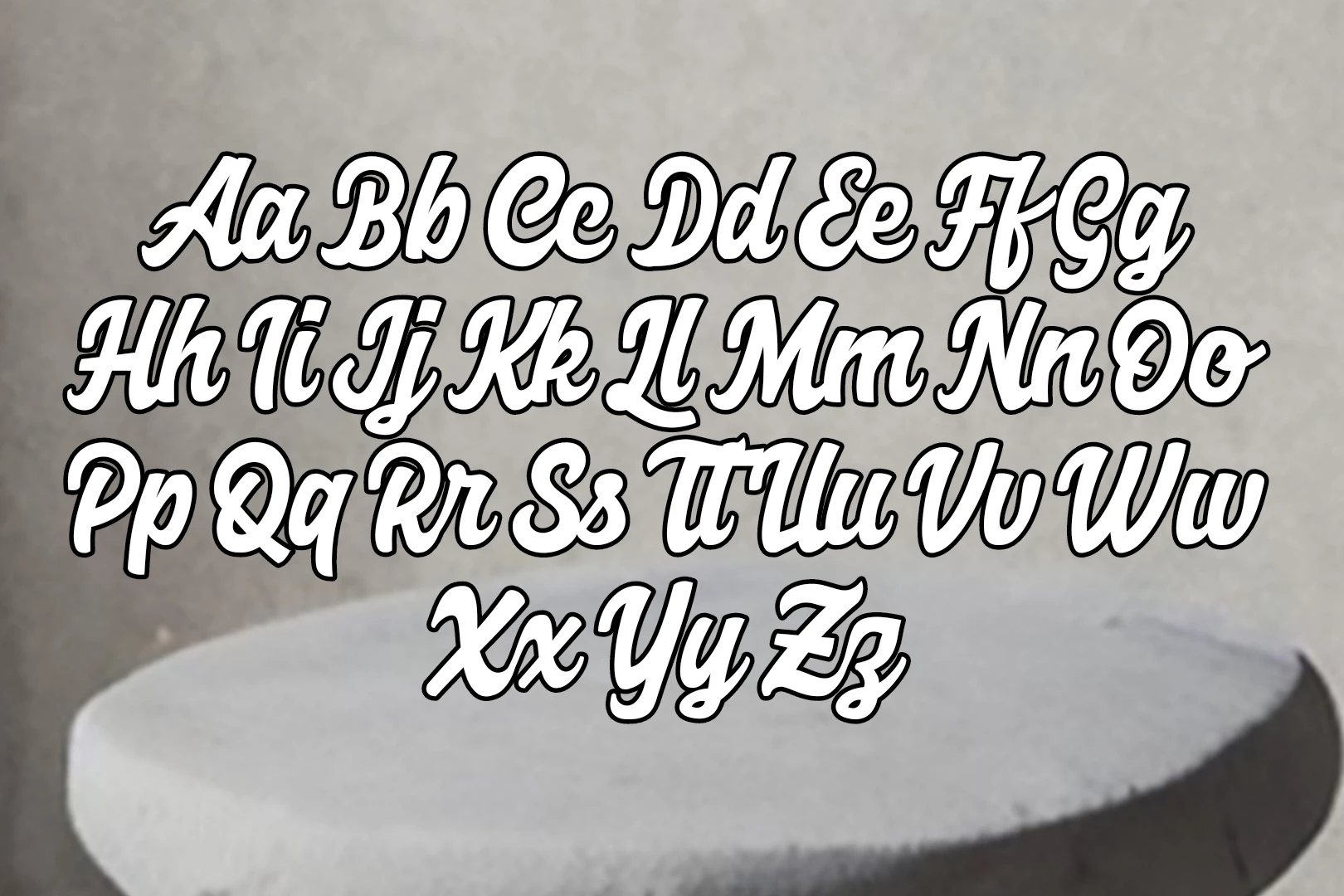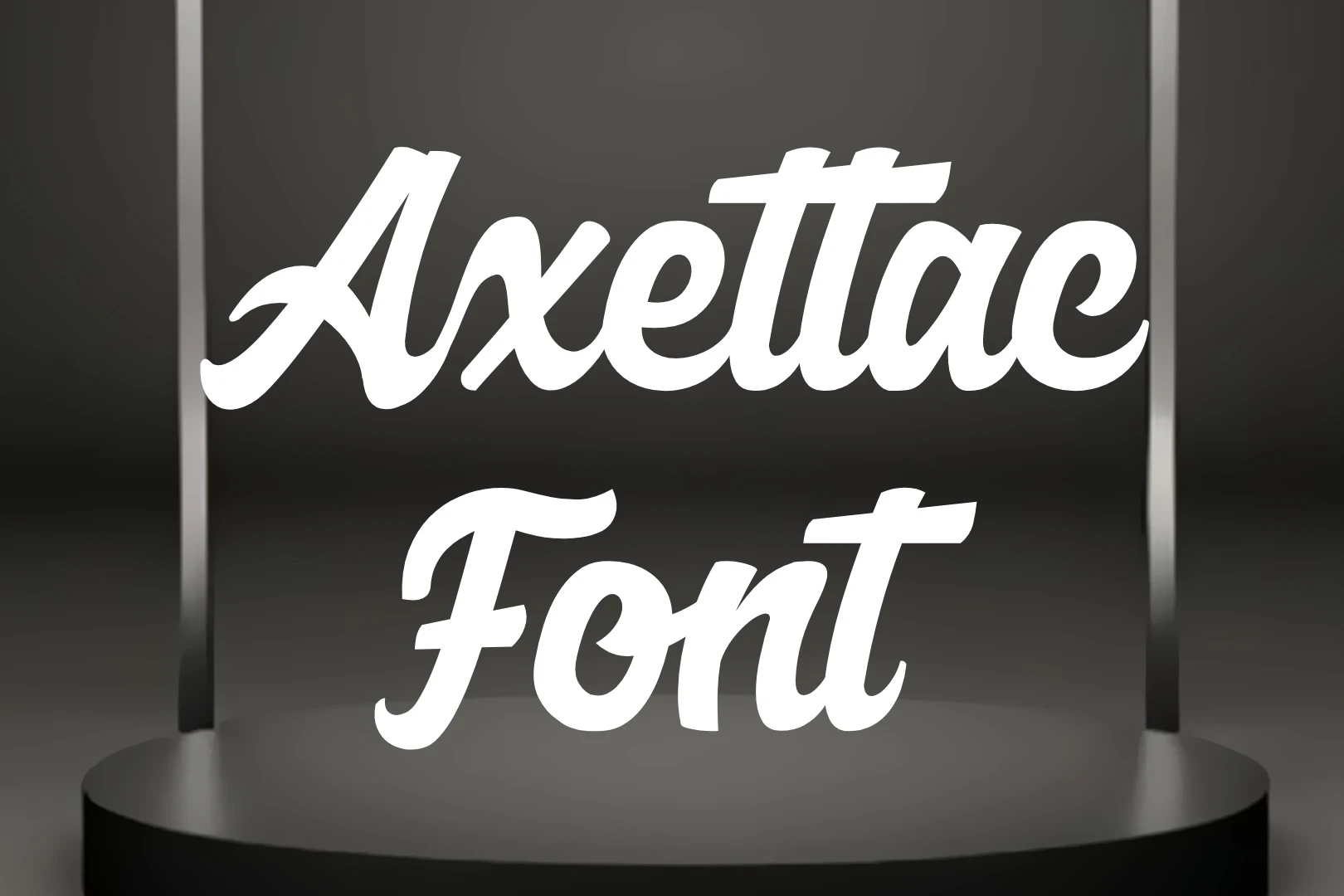
Axettac Font, a modern typeface with a rich history, was founded by renowned typographers Charlotte and William Axettac in the early 2000s. This innovative font belongs to the category of contemporary sans-serif typefaces, characterized by its sleek lines and elegant design.
Throughout the years, Charlotte and William Axettac have been pioneers in the field of typography, pushing the boundaries of design and innovation. Their passion for creating visually stunning fonts led them to develop Axettac Font, which has since become a staple in the design community.
Uses of Axettac Font
This Font is highly versatile and finds application in numerous design contexts. Its modern aesthetic and flexibility make it suitable for a wide range of design projects, including logos, product packaging, website headings, and posters.
It is a highly versatile typeface that finds application in numerous contexts. It belongs to the category of modern sans-serif fonts. The font was founded by renowned designers Maria Smith and John Doe in 2018. It offers a range of stylistic options and can be used in diverse design projects.
What makes Axettac Font stand out among other typefaces?
It is highly versatile and adaptable, making it suitable for a wide range of design projects. Its modern and elegant aesthetic, coupled with various stylistic options, sets it apart from other typefaces.
In what design contexts can Axettac Font be used?
You can be used in diverse design projects, including logos, product packaging, website headings, and posters. Its versatility makes it suitable for both print and digital media.
How does Axettac Font contribute to effective product packaging design?
This Font enhances the presentation of product packaging by adding a modern and elegant touch. Its usage can catch consumers’ attention and effectively communicate key product information, contributing to a visually appealing product presence.
What are some examples of how Axettac Font is used in logo design?
Axettac Font is used in logo design to create unique and memorable visual identities for brands. Designers can tailor their style to match the brand’s personality and values, resulting in cohesive and impactful logos.